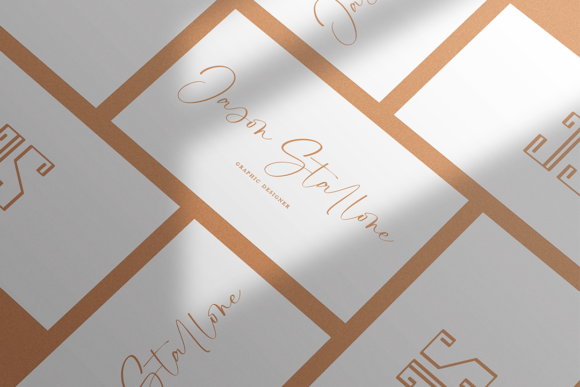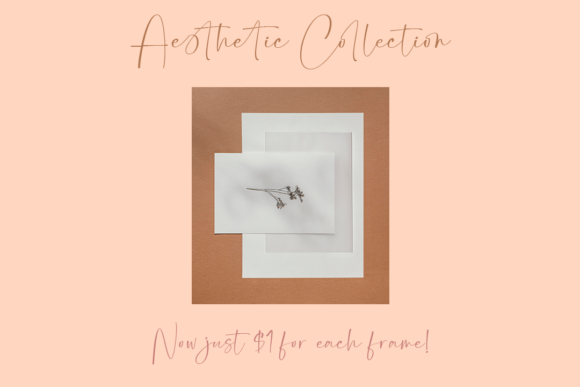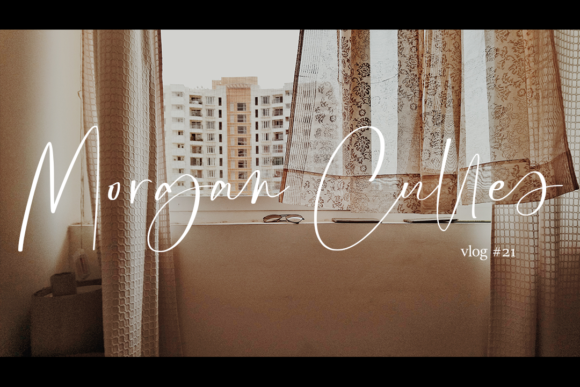
Introduction to Conquest Font
Conquest is a stylish, thin lettered and relaxed script font.
It is PUA encoded which means you can access all of the glyphs and swashes with ease It will add a luxury spark to any design project that you wish to create.